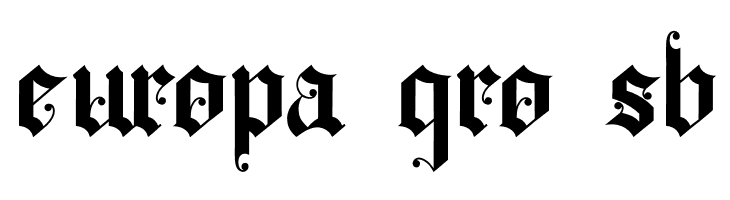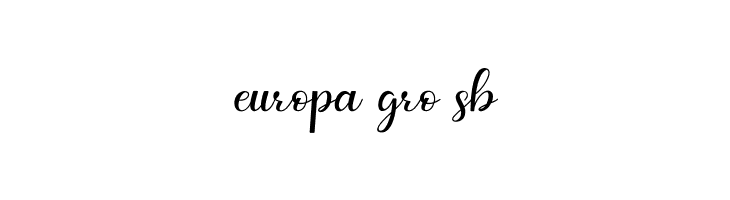
A bold, brush-style handwritten font with dynamic strokes and a lively appearance.
A bold, expressive handwritten font with dynamic strokes.
An elegant and flowing script font with connected letterforms.
A bold, decorative Blackletter font with intricate details and gothic flair.
A dynamic and elegant script font with flowing, cursive letterforms.
A dynamic and fluid cursive font with elegant, interconnected letters.
A sharp, angular font with a dynamic, edgy style.
A flowing, cursive script font with elegant loops and swashes.